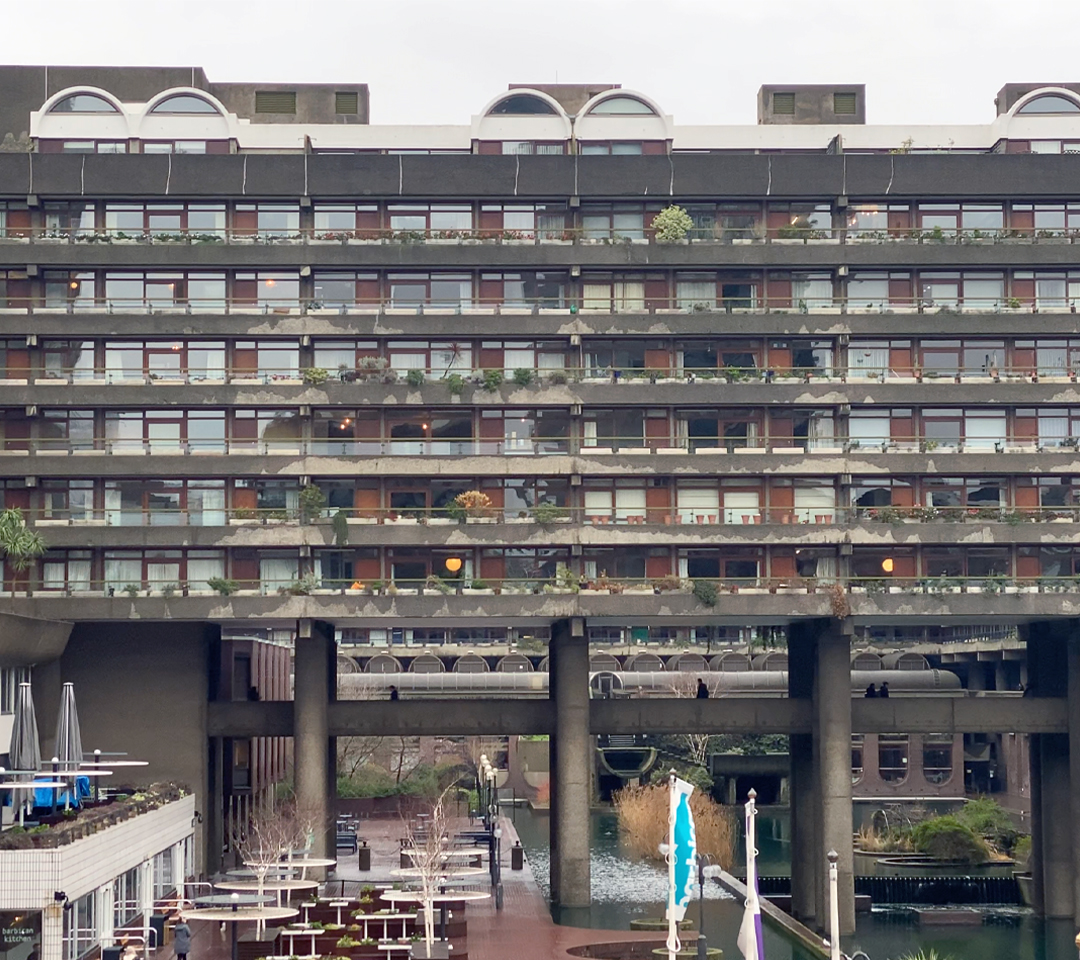
The Barbican
By Miguel Da Rocha
The Barbican font stands on an angular foundation, very much replicating the architecture of the Barbican estate. Captured is the contrast and juxtaposition of such hard, raw materials being used to build the most incredible curves and angular edges. The font utilizes recurring shapes at the Barbican estate: arched windows, parallel structures, and dominating skylines.